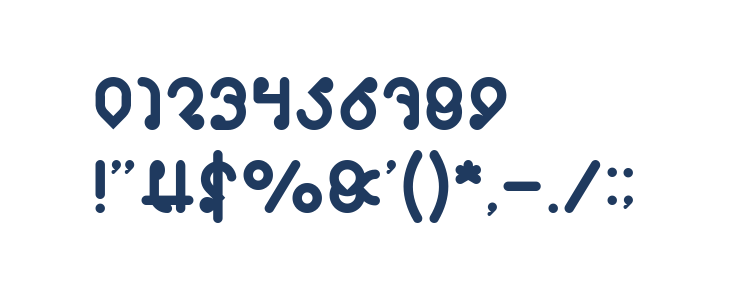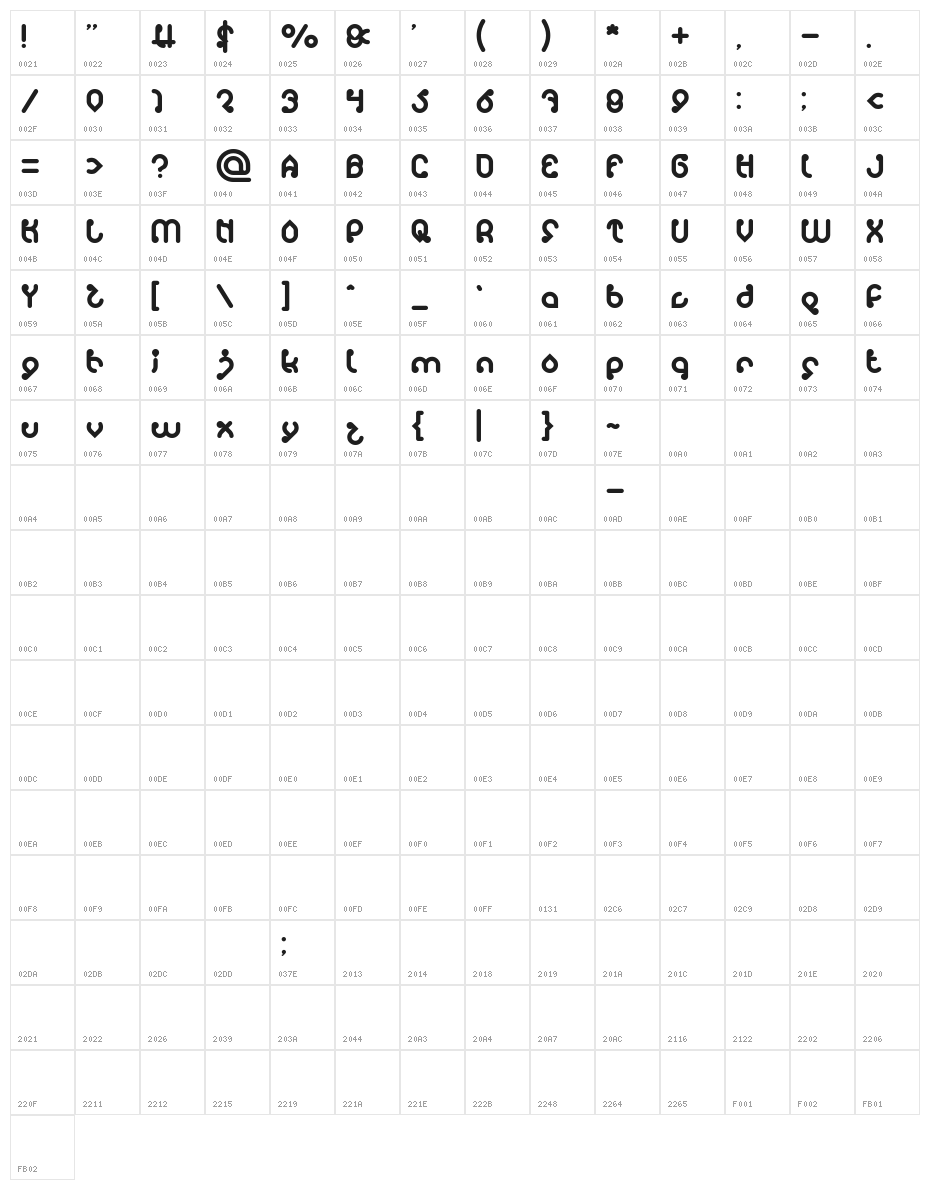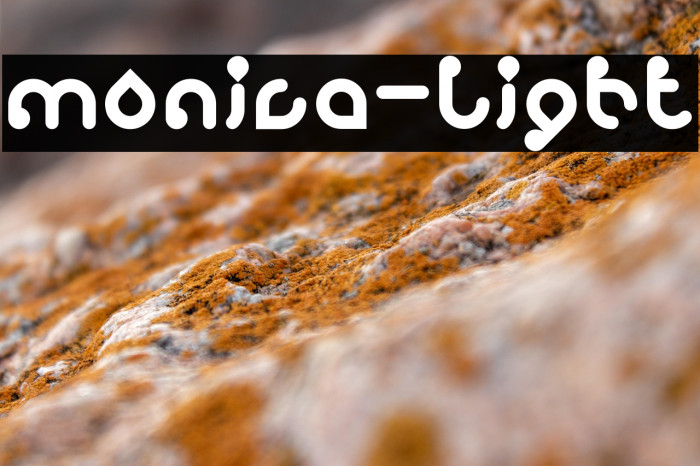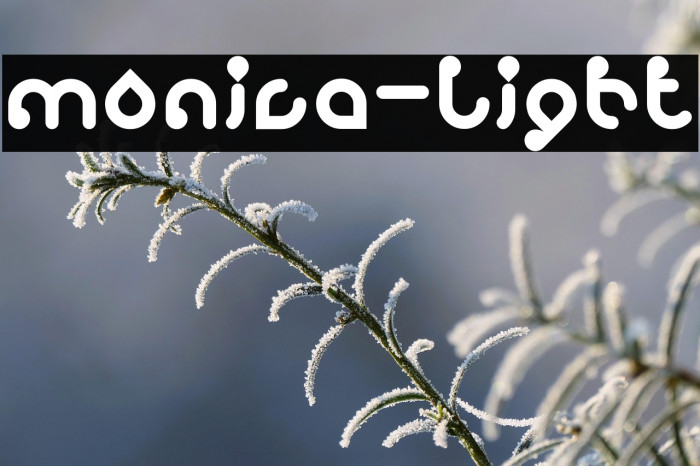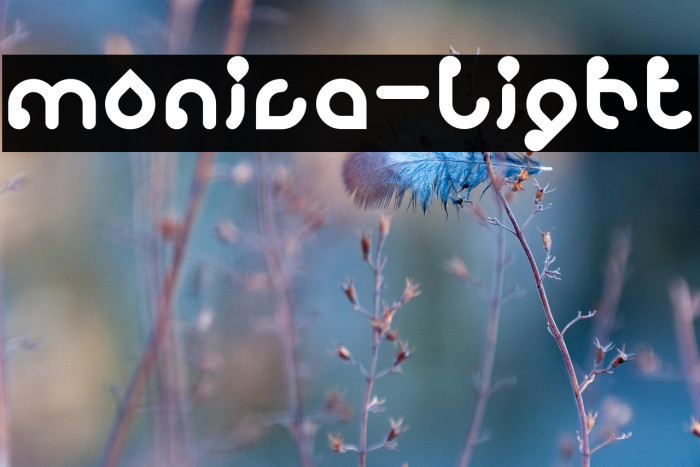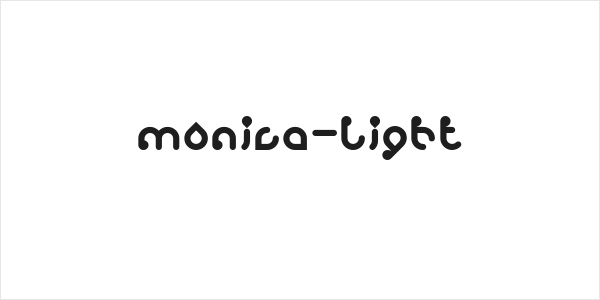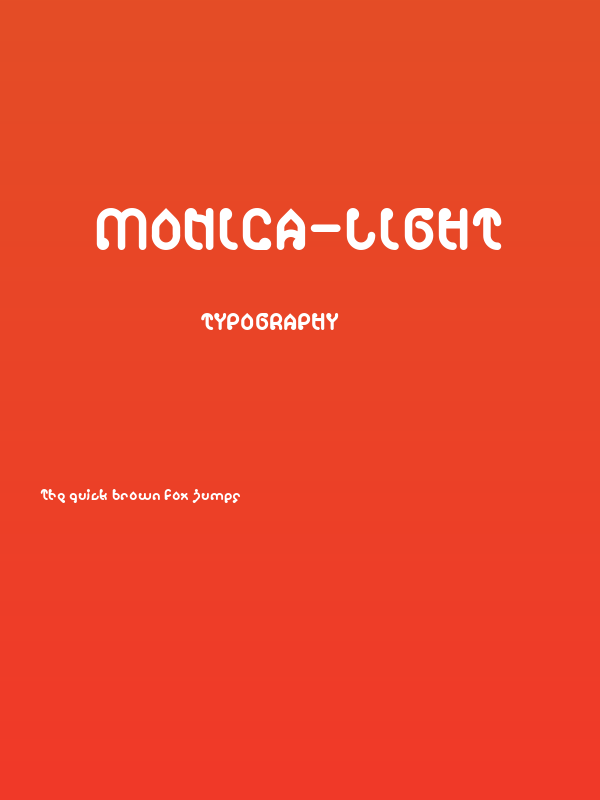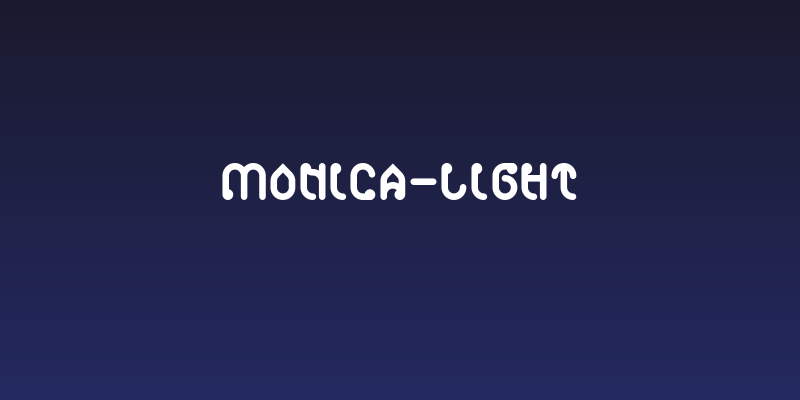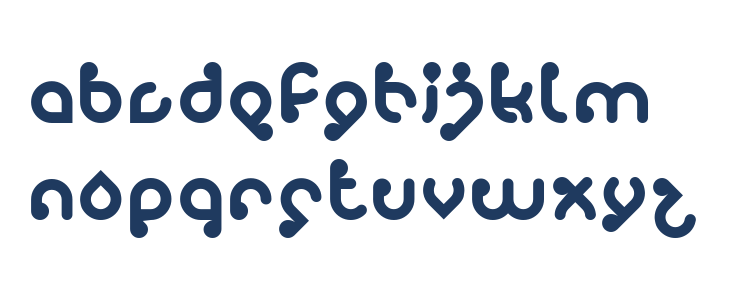
monica-Light Font
monica-Light Description
This font features a playful and rounded design, characterized by its bold, smooth curves and consistent stroke width. The letters have a unique, almost whimsical appearance, with some characters incorporating unexpected angles and loops that add to its charm. The numerals and special characters maintain the same playful style, ensuring a cohesive look across all glyphs. Its boldness and rounded edges make it highly legible, while the distinctive style adds a touch of creativity and fun.